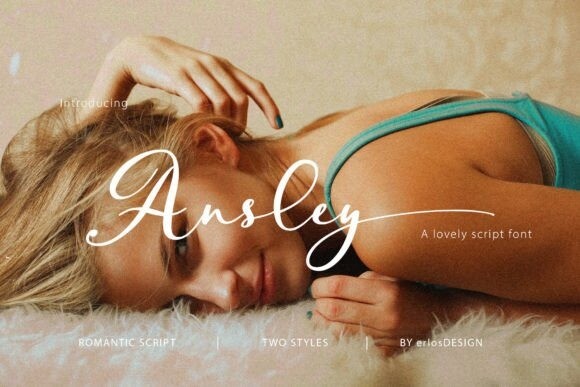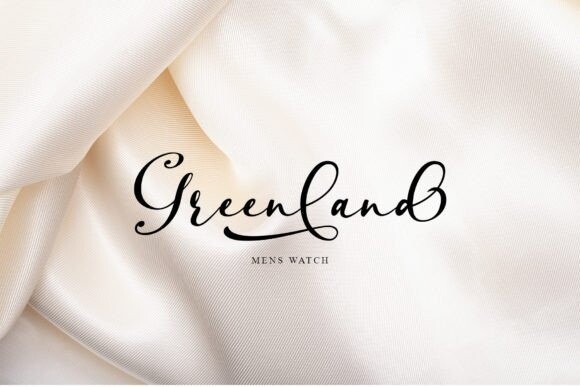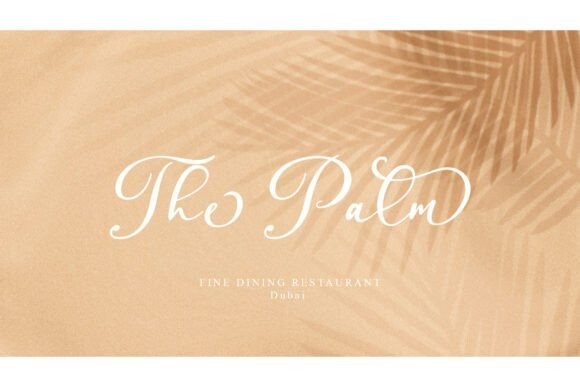
Ansley Font
Ansley is a romantic, elegant, and flowing modern calligraphy font. It has beautiful and well-balanced characters and as a result, it matches a wide pool of designs. This font is perfect for invitations, wedding decorations, signs, logos, quotes, and more!